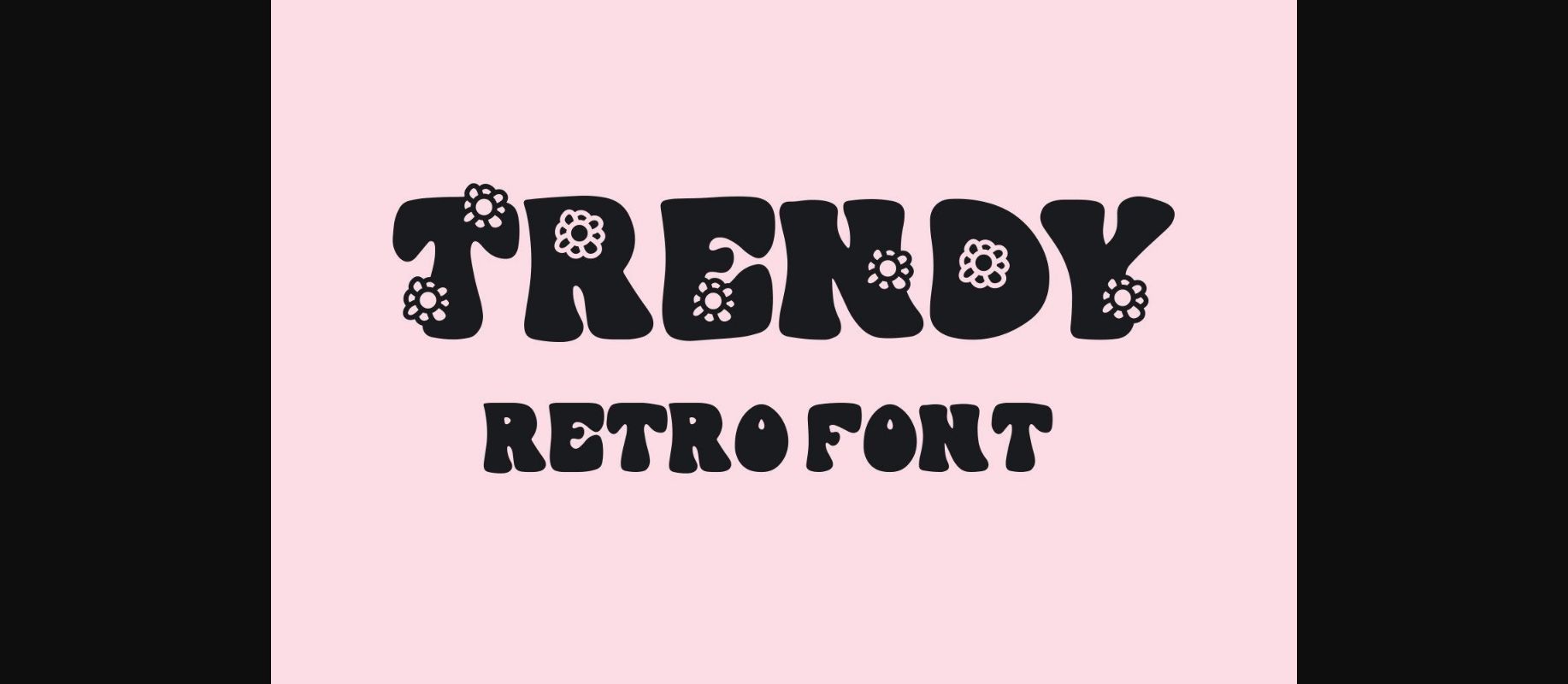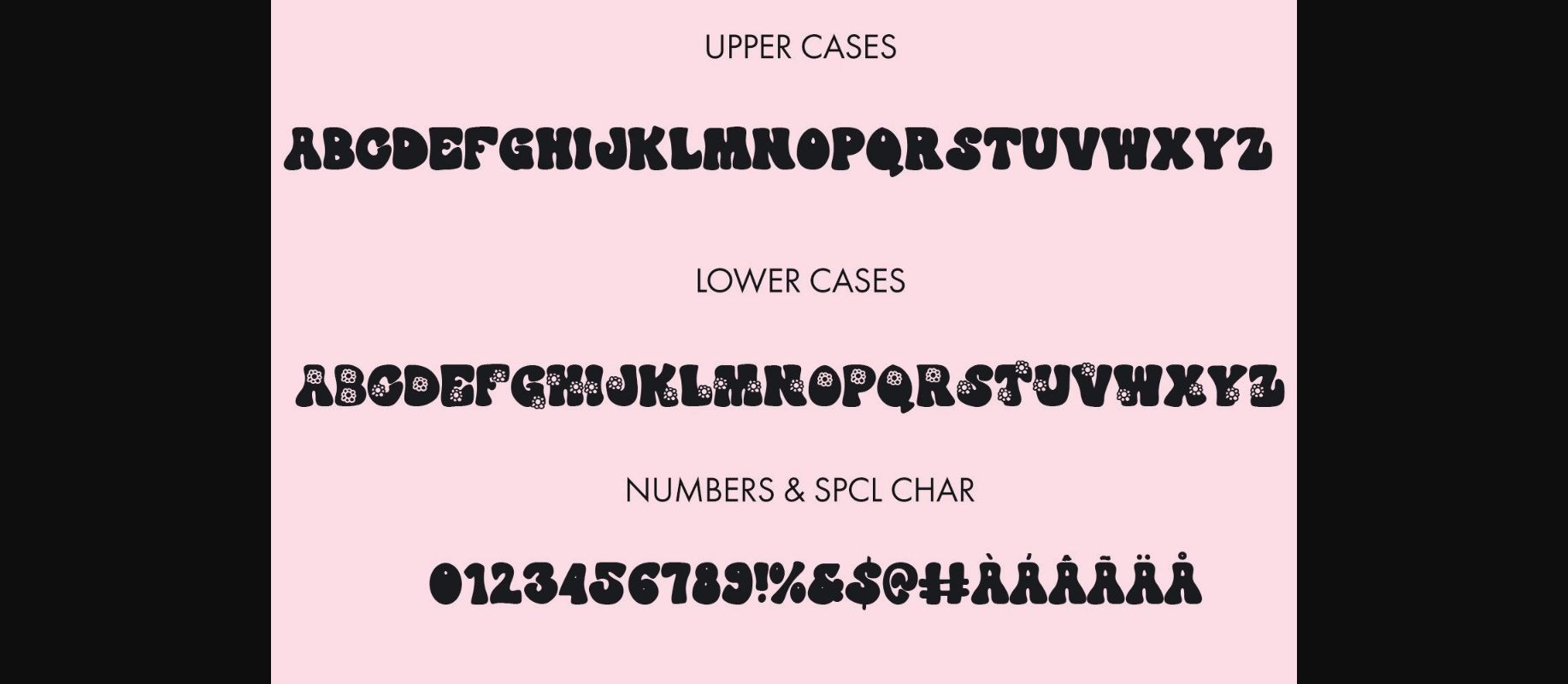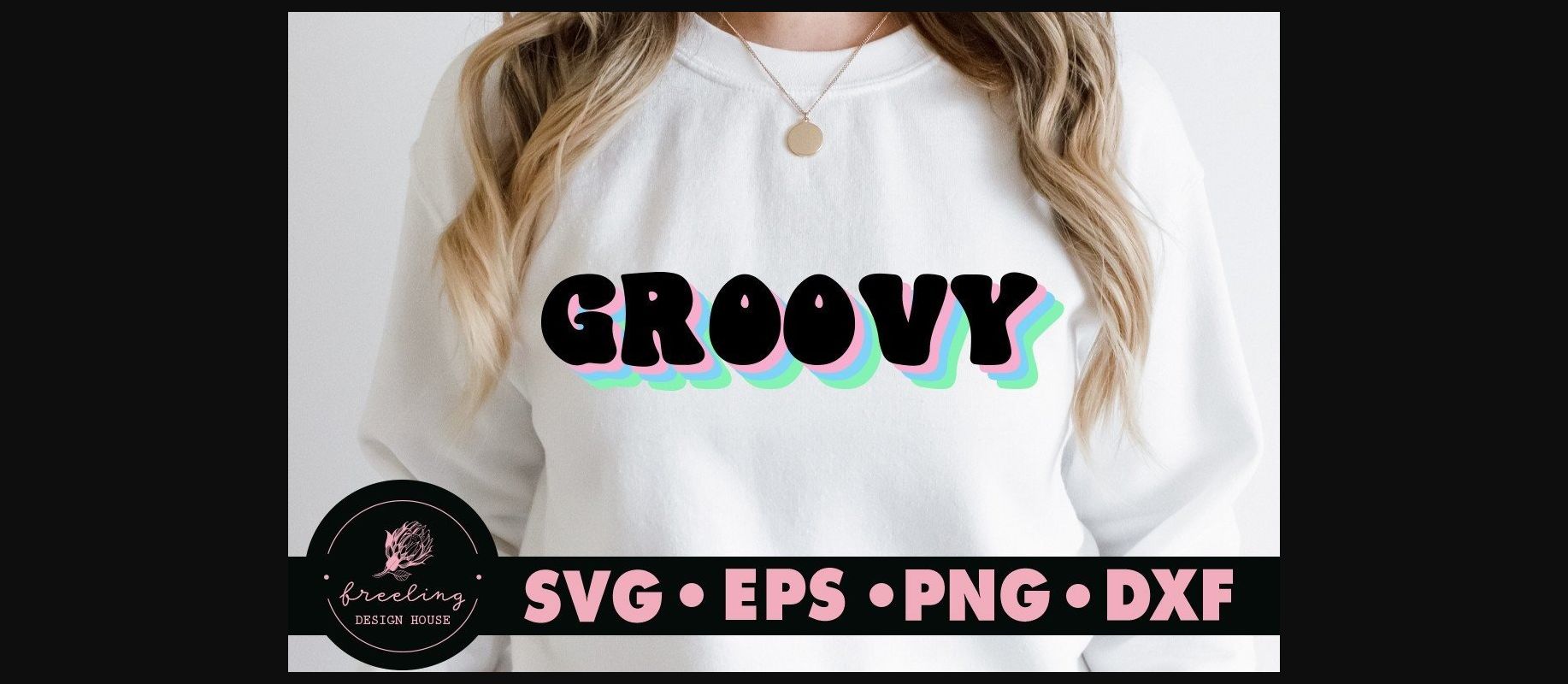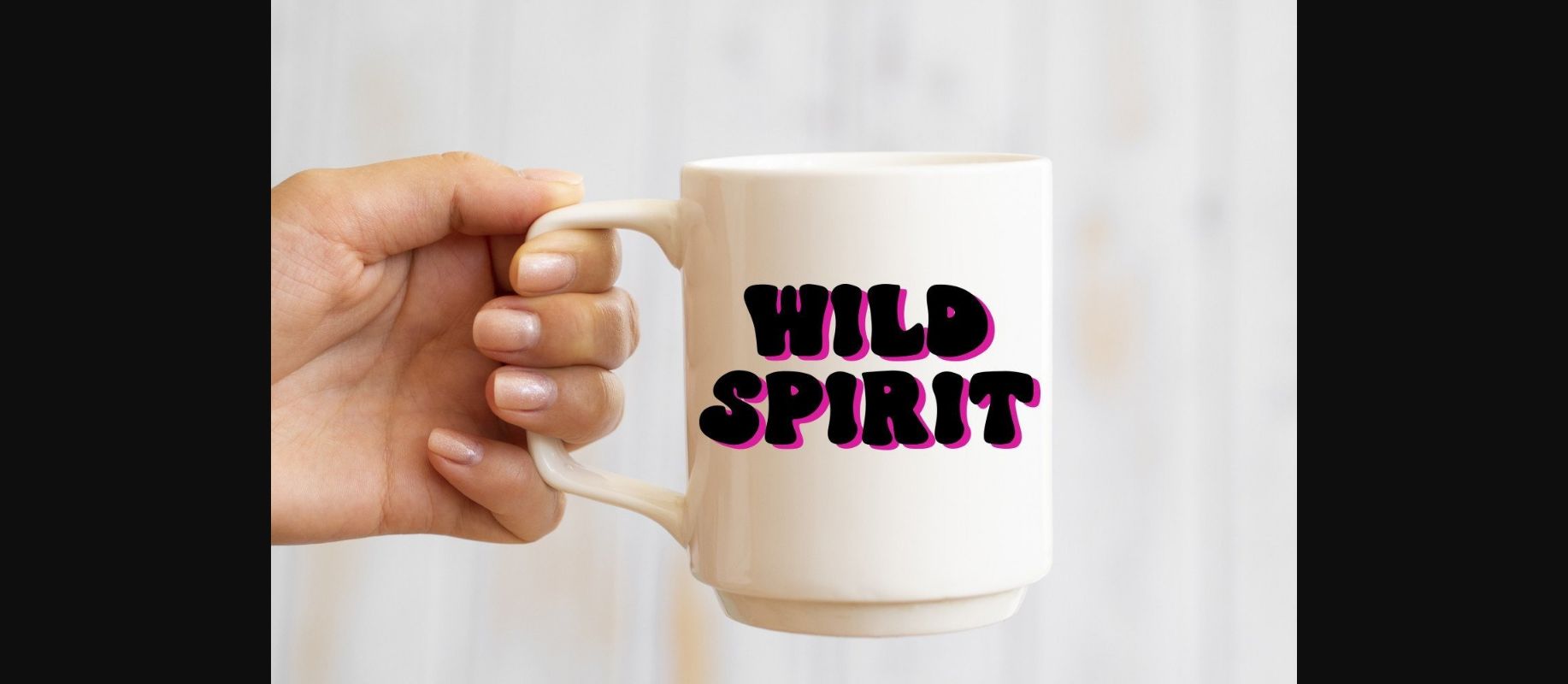
Trendy Font
About Trendy Font
Trendy is a retro and vintage decorative font inspired by the hippie culture. It is perfect to use for various projects where you would like to embrace the groovy part of the design. Add it to your most creative ideas, and notice how it makes them come alive!